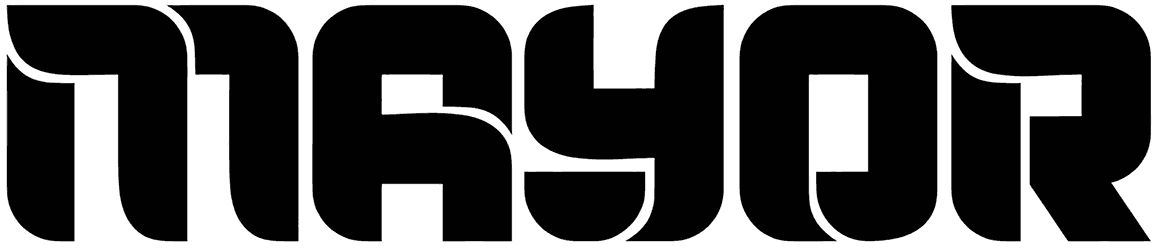
Mayor Font
Mayor is an eye-catching ribbon font with 2 styles that adds special effects to your texts and has soft and pleasant curves. This font can add a subtle yet masculine touch to any project and is a great asset to your coll…
Mayor is an eye-catching ribbon font with 2 styles that adds special effects to your texts and has soft and pleasant curves. This font can add a subtle yet masculine touch to any project and is a great asset to your collection.
You can integrate this logo font in all kinds of projects, such as coffee shop logo design, nature posters, and children’s equipment packaging, even though it does not have lowercase letters, and enjoy its versatility.